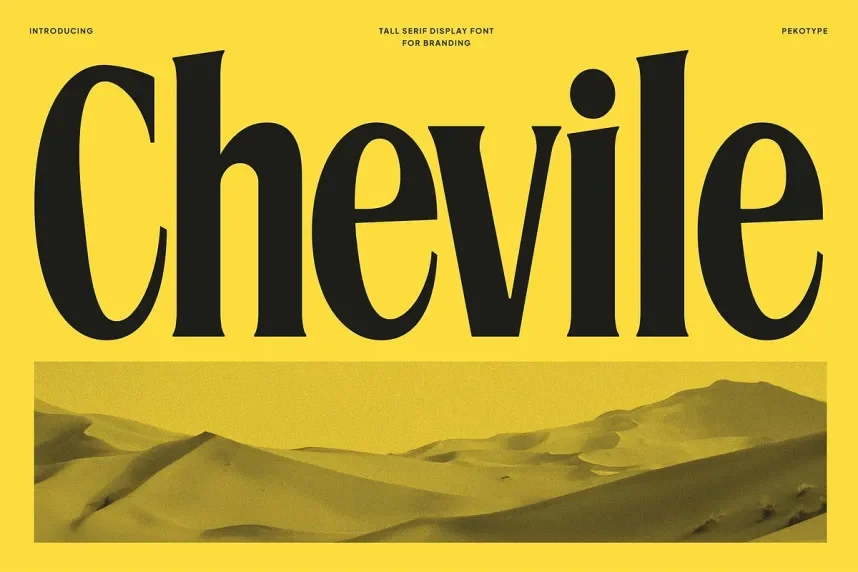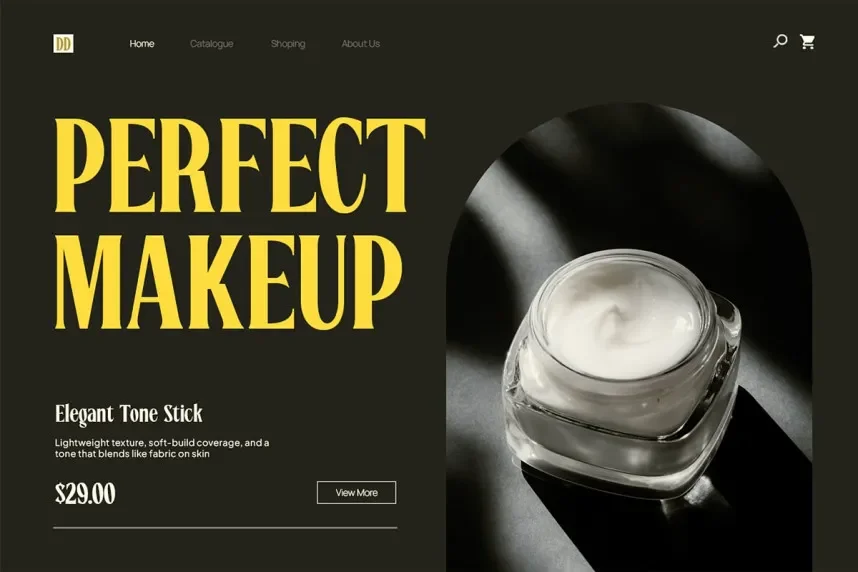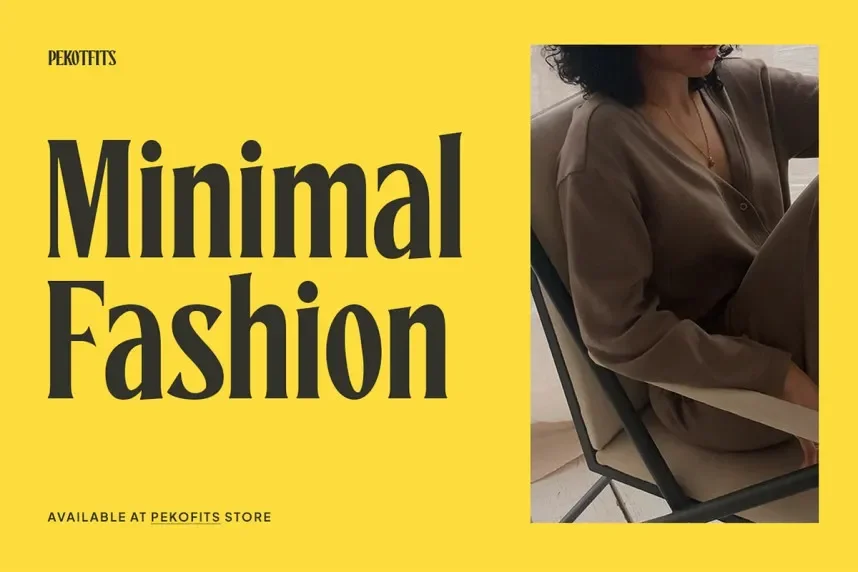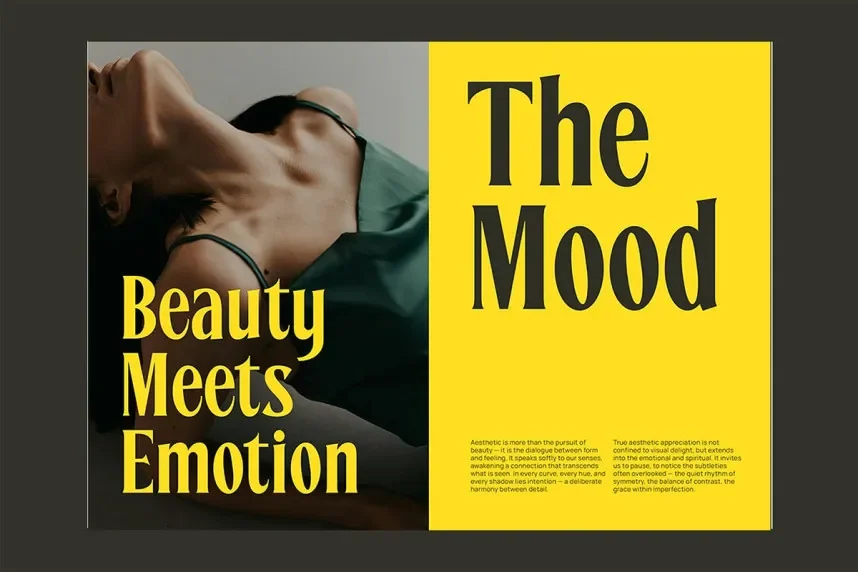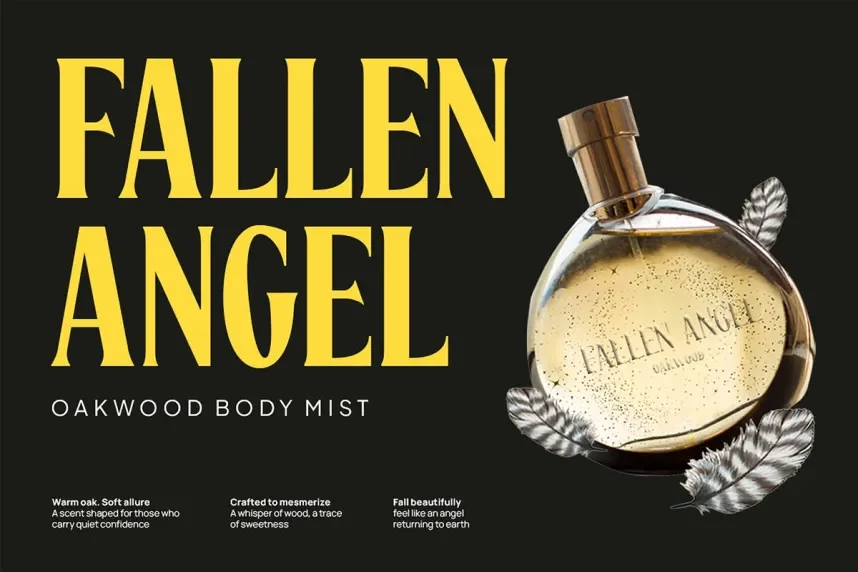
Chelive Font addresses a common design issue: creating handwritten branding that stays readable across digital and print formats. Many script fonts lose clarity in logos, email signatures, and wedding invitations when letter spacing becomes too tight.
Chelive Font is a script typeface with smooth curves, moderate stroke contrast, and connected letterforms. The characters follow a natural writing flow, with balanced ascenders and descenders that improve legibility. It avoids heavy swashes, making short text easier to read on screens.